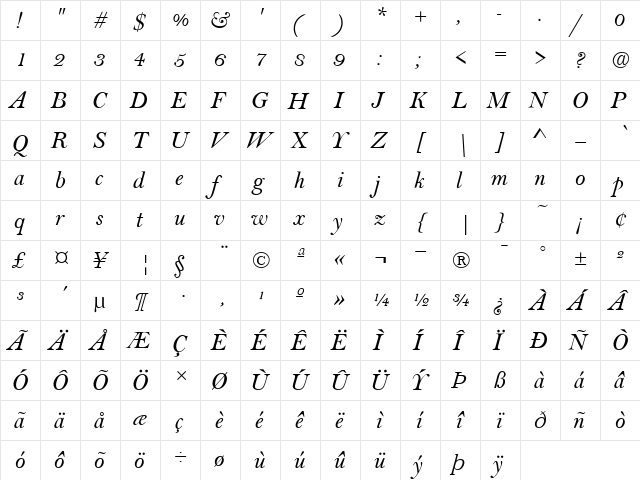
Bell T Italic
| Foundry | by URW |
Design Context for Bell T Typeface
Bell T is a composed and adaptable typeface that performs quietly and consistently across a wide range of design contexts. The slanted form adds forward momentum and visual energy.